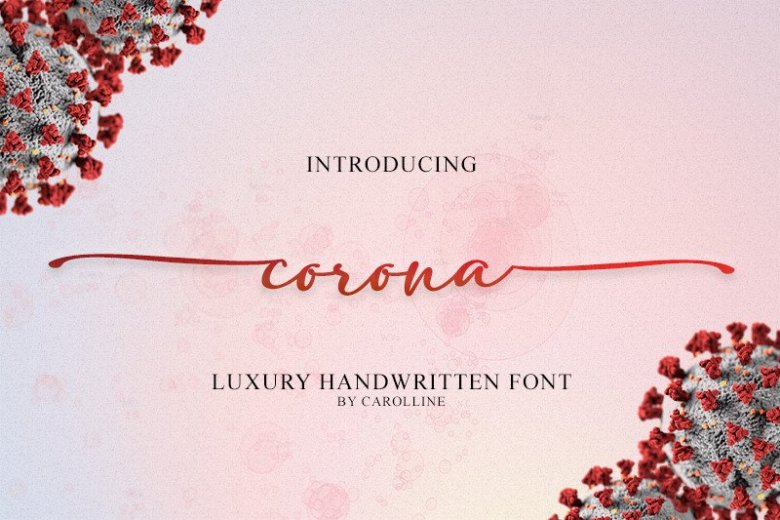
Corona Script Font
Corona Script Font is handmade modern script typefaces. It’s hand look style makes it perfect for use in all your design projects be it logos, signatures, labels, packaging design, blog headlines! It’s designed and shared by Carroline Herrera. Author made this special font to remember the corona virus victims 🙁 #savecorona